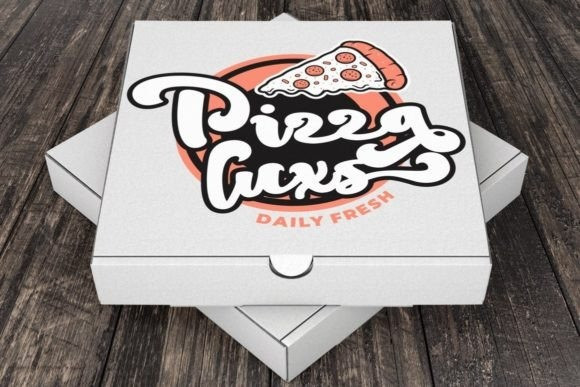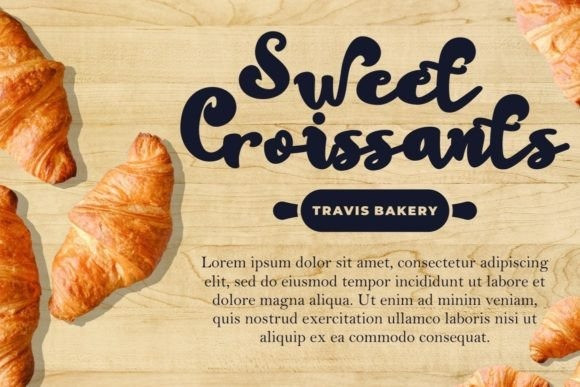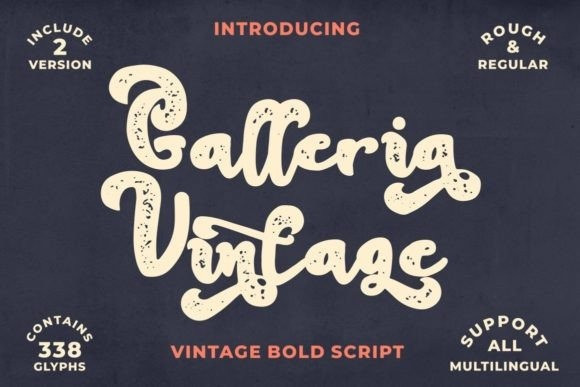
Galleria Vintage Font
Galleria Vintage Font is a bold vintage script font. In this font, vintage with luxury/aesthetics combine beautifully, so you can use it in various projects with retro/vintage and luxury themes. Try it on logos, branding, posters, packaging, book covers, clothes/apparel, quotes, titles, and others.
This font is PUA encoded, which means you can access all of the glyphs and swashes with ease!